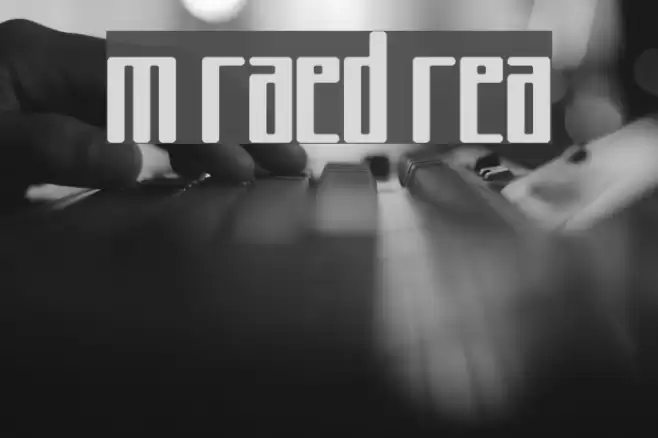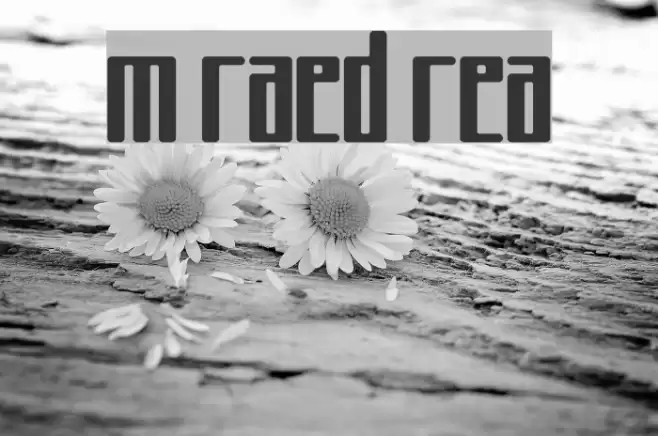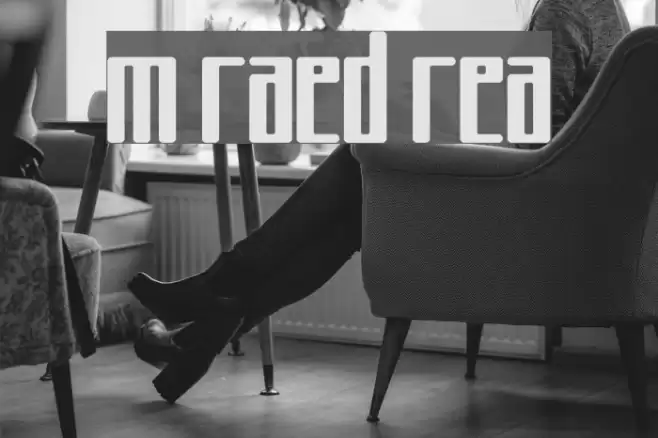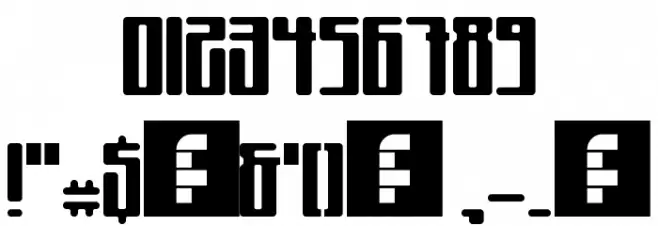
Mojo Raised Regular Font
Mojo Raised Regular Description
This font features a bold and geometric design with a modern flair. The characters are constructed with thick, consistent strokes, giving them a strong presence. The uppercase and lowercase letters maintain a uniform height, contributing to a cohesive and structured appearance. The font includes unique design elements, such as rounded corners and subtle cutouts, adding a touch of playfulness. The numerals and special characters are designed to match the boldness and geometric style of the alphabet, ensuring a harmonious look across all text elements.
A bold, geometric font with modern design elements and consistent stroke thickness from Uncategorized fonts.